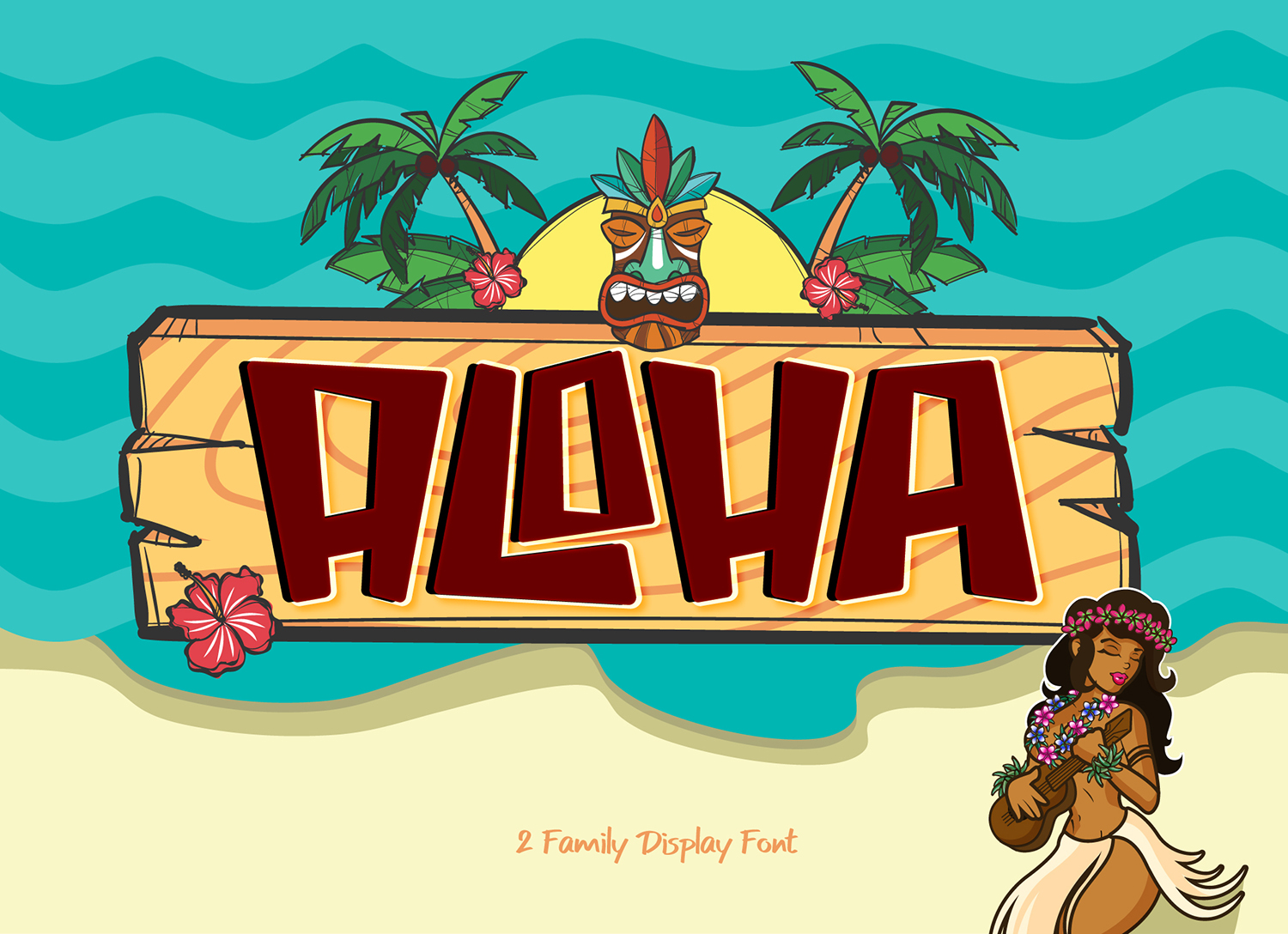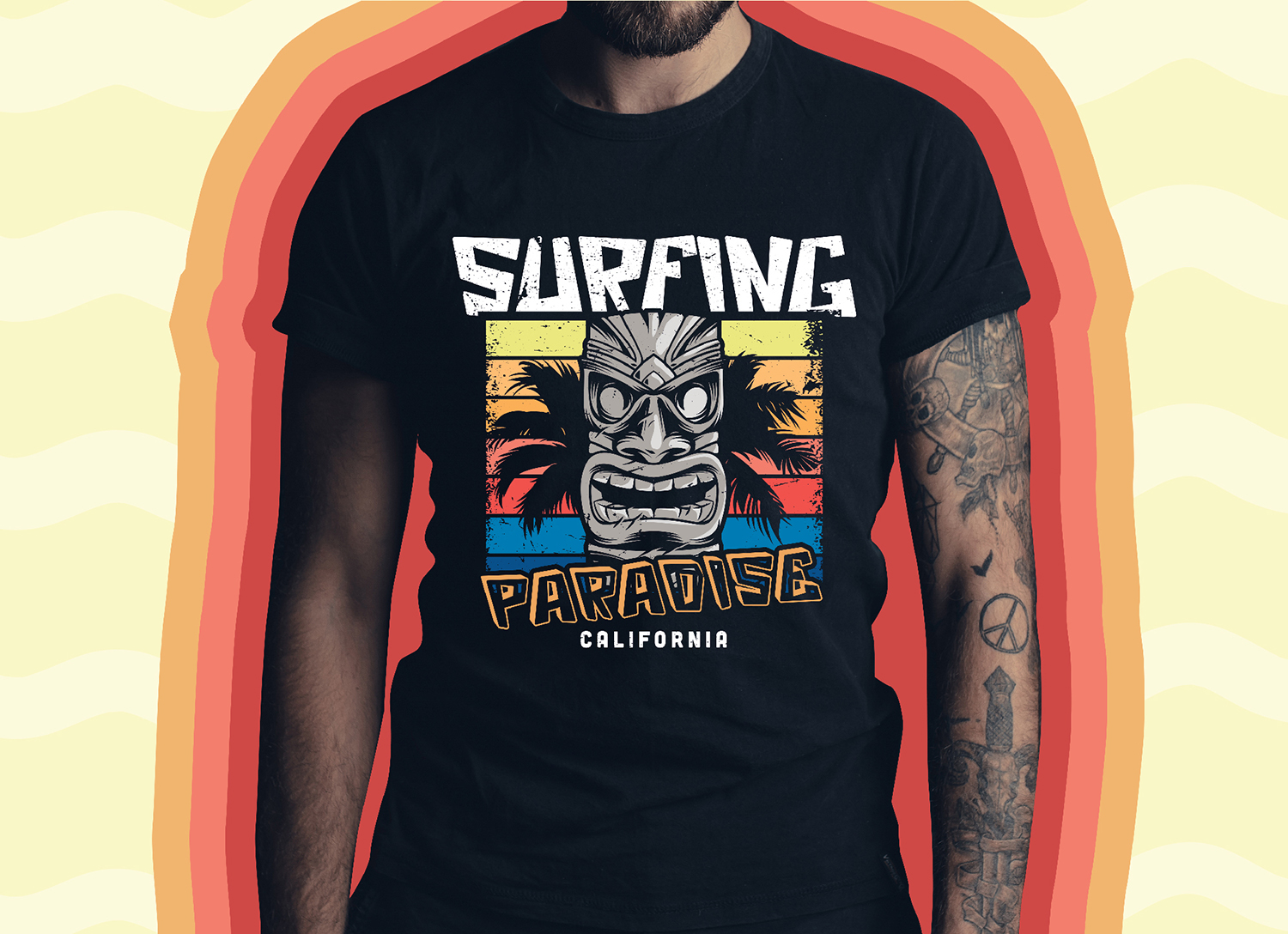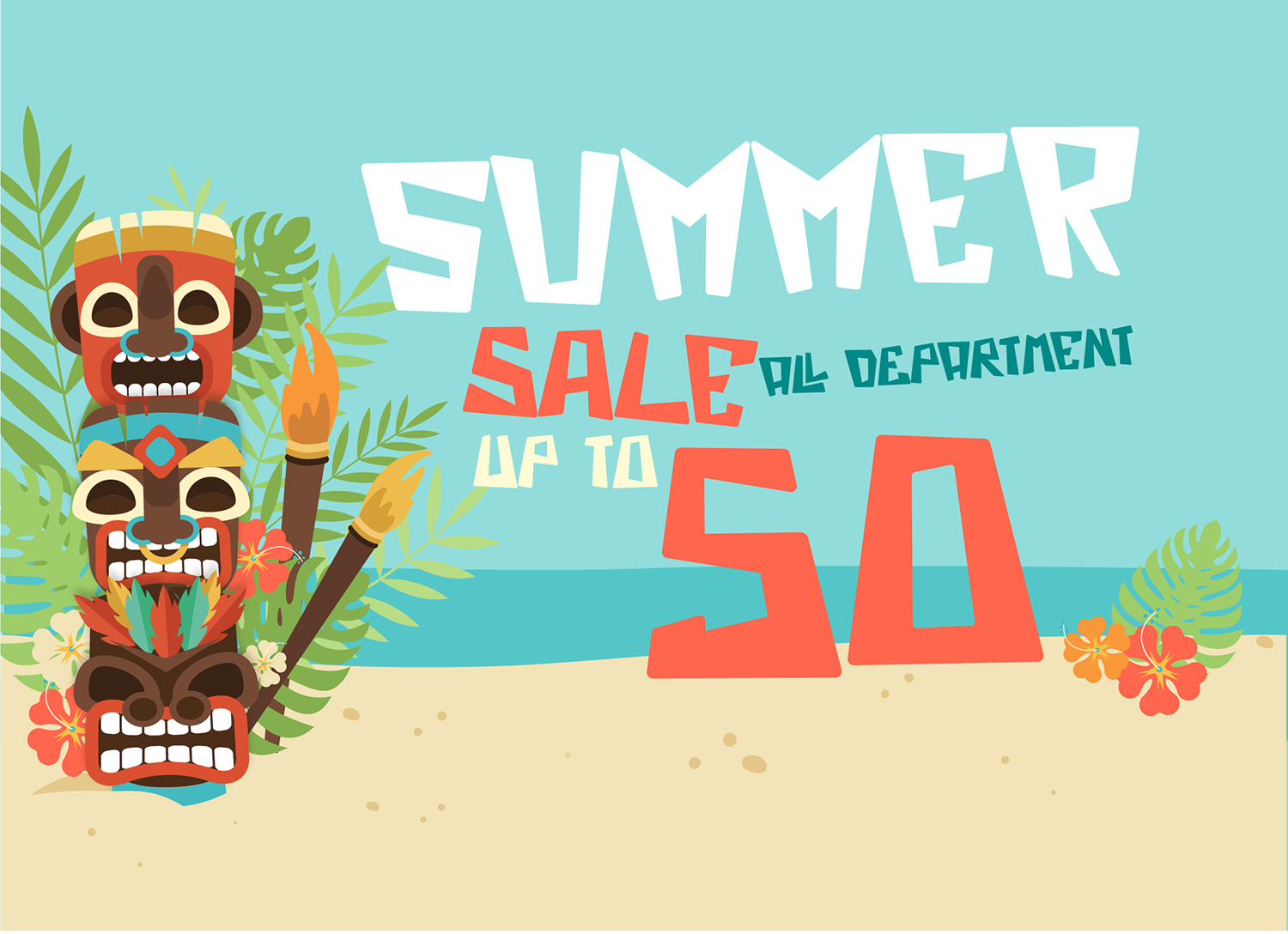
Aloha Free Font
Aloha Free Font is a bold and quirky display font. Its friendly feel makes this font incredibly versatile, fitting a wide range of contexts. Add it to your creative ideas and notice how it makes them stand out. This free typeface was designed by talented Bazz TheBigman. If you like it don’t forget to check out the full version.